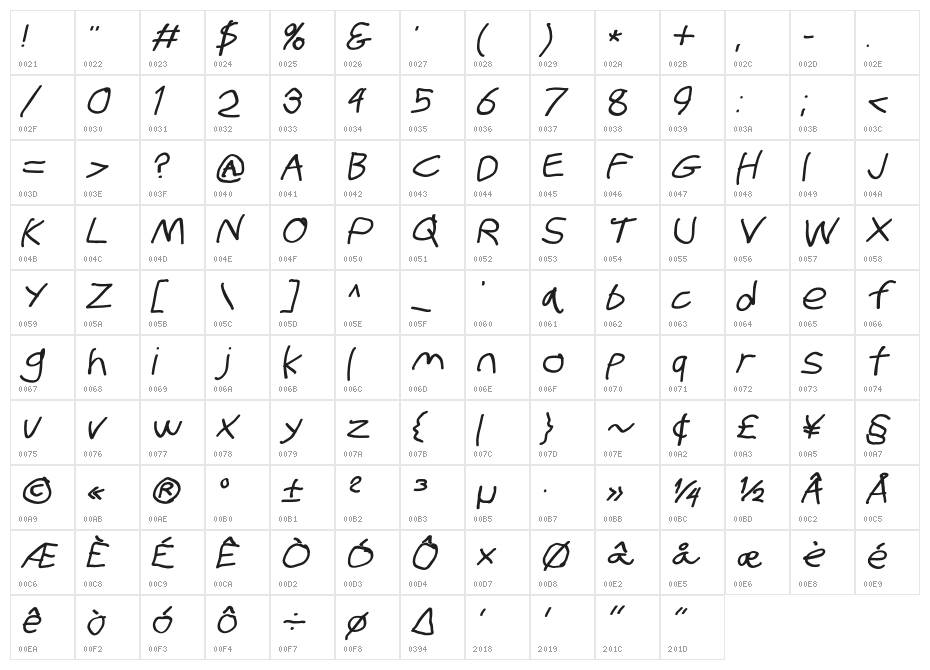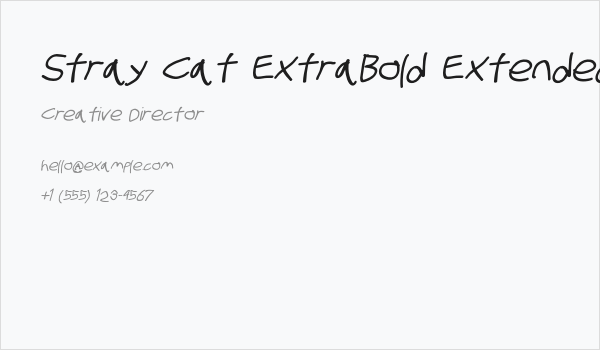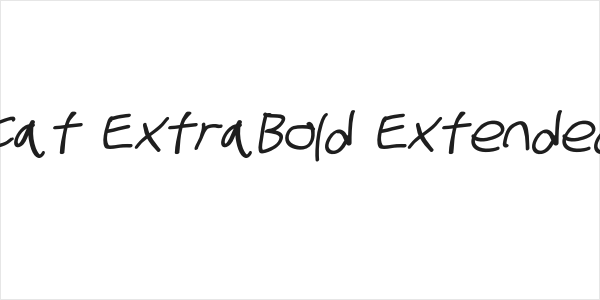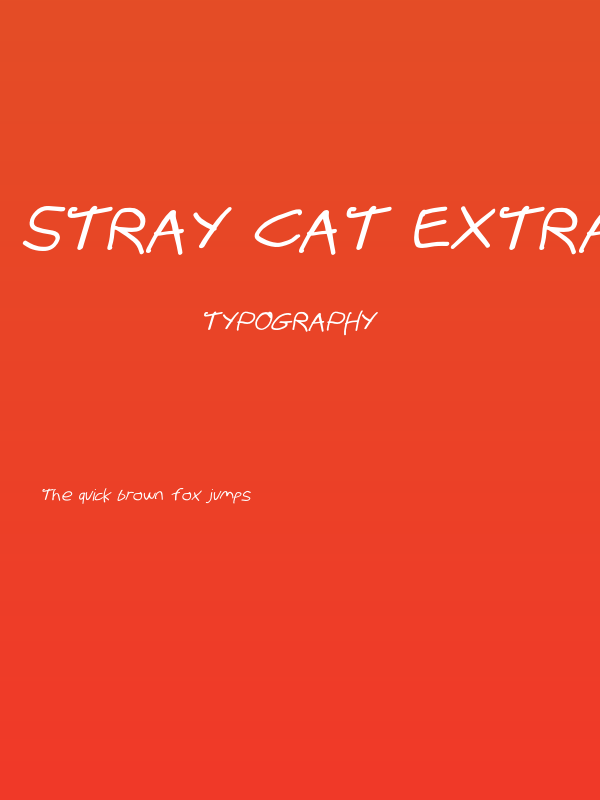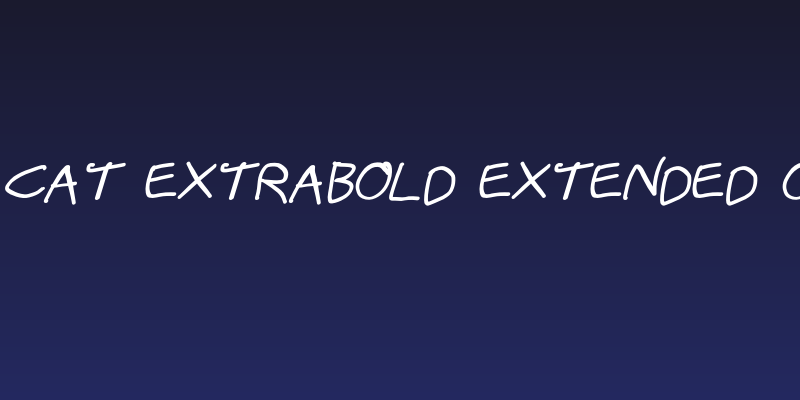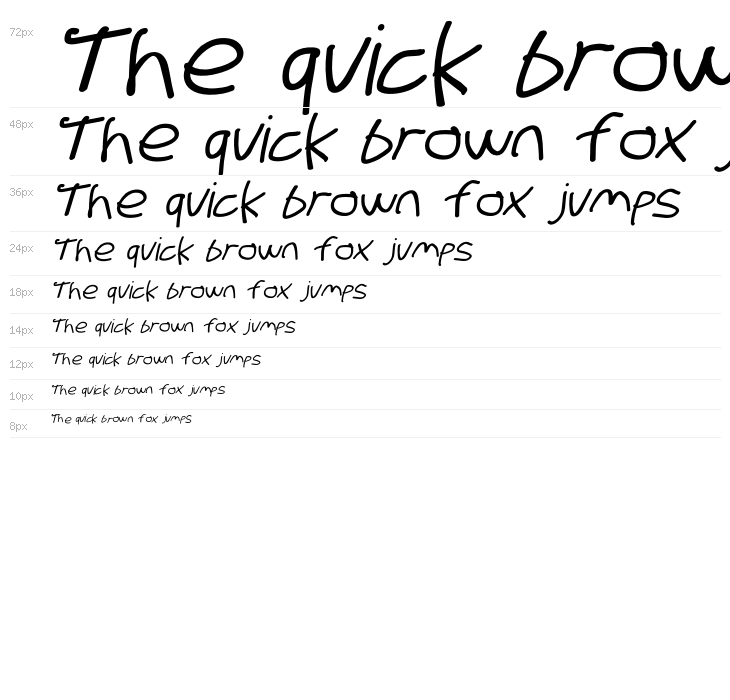
Stray Cat ExtraBold Extended Oblique Font
Stray Cat ExtraBold Extended Oblique Description
This font exhibits a playful and dynamic handwritten style, characterized by its bold and extended letterforms. The oblique angle adds a sense of motion and informality, making it stand out in a casual and friendly manner. Each character is crafted with a consistent stroke weight, providing a uniform appearance despite the freeform nature of the design. The uppercase and lowercase letters maintain a cohesive look, while the numerals and special characters complement the overall aesthetic. This font's unique style is perfect for projects that require a personal touch or a creative flair.
| Proposed Projects | Ideal for greeting cards, playful branding, children's books, and creative posters. |